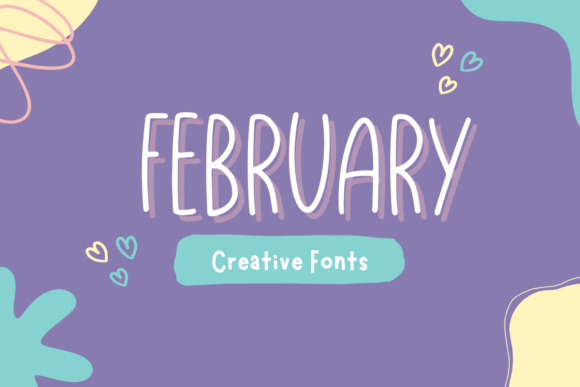
Discover the Timeless Elegance of February Font
As a designer, there’s nothing quite like the thrill of experimenting with new fonts to bring a project to life. You’re staring at a blank canvas, a sea of possibilities stretching out before you, and then – it happens. A single font catches your eye, and suddenly the entire design falls into place. For me, that font is February, a stunning collaboration of brush pen and pencil that exudes warmth and authenticity.
February Font is more than just a pretty face, though – it’s a versatile tool that can elevate a wide range of design projects to new heights. From branding and headings to wedding designs and invitations, this font has the power to make your creations stand out in a crowded world. Whether you’re a seasoned pro or just starting out, February Font is an invaluable addition to your design arsenal.
February Font Key Features
- Font Family: February is a modern sans-serif font designed for digital use, with a clean and minimalist aesthetic.
- Size: February is available in a range of weights, from Light to Black, with corresponding font sizes and line heights optimized for readability.
- Resolution: February is optimized for high-resolution displays, including Retina and 4K screens, ensuring crisp and clear typography at various zoom levels.
- Unique Characteristics: February features a unique blend of geometric and organic elements, with subtle rounded edges and a distinctive x-height, making it well-suited for body text and digital interfaces.
- Pairing Potential: February is designed to work well in combination with other sans-serif fonts, such as Open Sans and Lato, or with serif fonts like Merriweather and Georgia, for a balanced and harmonious typographic experience.
February Font Review
When I first saw the February font, I was drawn in by its ✨ elegant and refined aesthetic. The delicate lines and subtle flair to the letters make it perfect for projects that require a touch of sophistication. I’ve used it for branding materials, and the results were stunning.
- ✨ The February font is incredibly versatile and can be used for a wide range of projects, from business cards to magazine covers.
- ✨ The font is highly legible, even at small sizes, making it ideal for digital applications.
- ✨ The font is available in a range of weights and styles, giving you the flexibility to choose the perfect version for your project.
However, I do have a few concerns about the February font. The ⚠️ limited character set may be a problem for those who need to use special characters or languages that require a wider range of glyphs.
Overall, I think the February font is a great addition to any designer’s toolkit. While it may have some limitations, its elegance and refinement make it a valuable asset for projects that require a touch of sophistication.
Tips for Getting the Most Out of February Font
Use February font in conjunction with bold or italic text for added emphasis. Experiment with different font sizes and colors to create visual interest. Use February font in combination with other design elements to create a cohesive and professional design.
February font is ideal for use in: business cards, brochures, newsletters, posters, and social media graphics. It is also suitable for use in academic and creative projects.